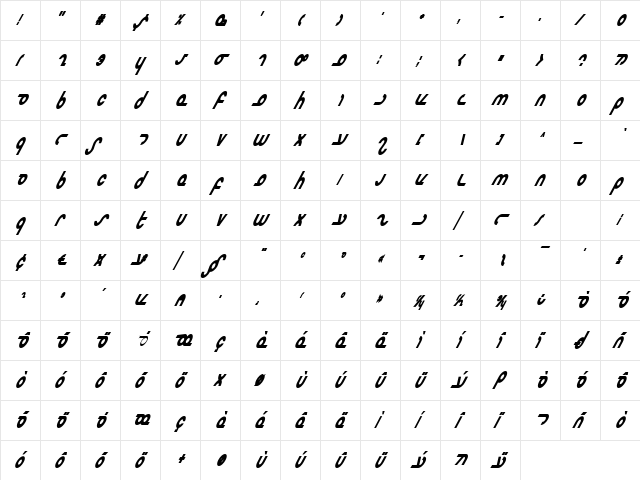
Masterdom Condensed Bold Italic Font Preview
Design Context for Masterdom Condensed Bold Italic Typeface
Masterdom Condensed Bold Italic is a composed and adaptable typeface that performs quietly and consistently across a wide range of design contexts. Its italic angle brings a sense of urgency and motion to the letterforms. Its bold stroke weight gives it real presence on the page. The condensed width makes it efficient for tight spaces without sacrificing legibility.